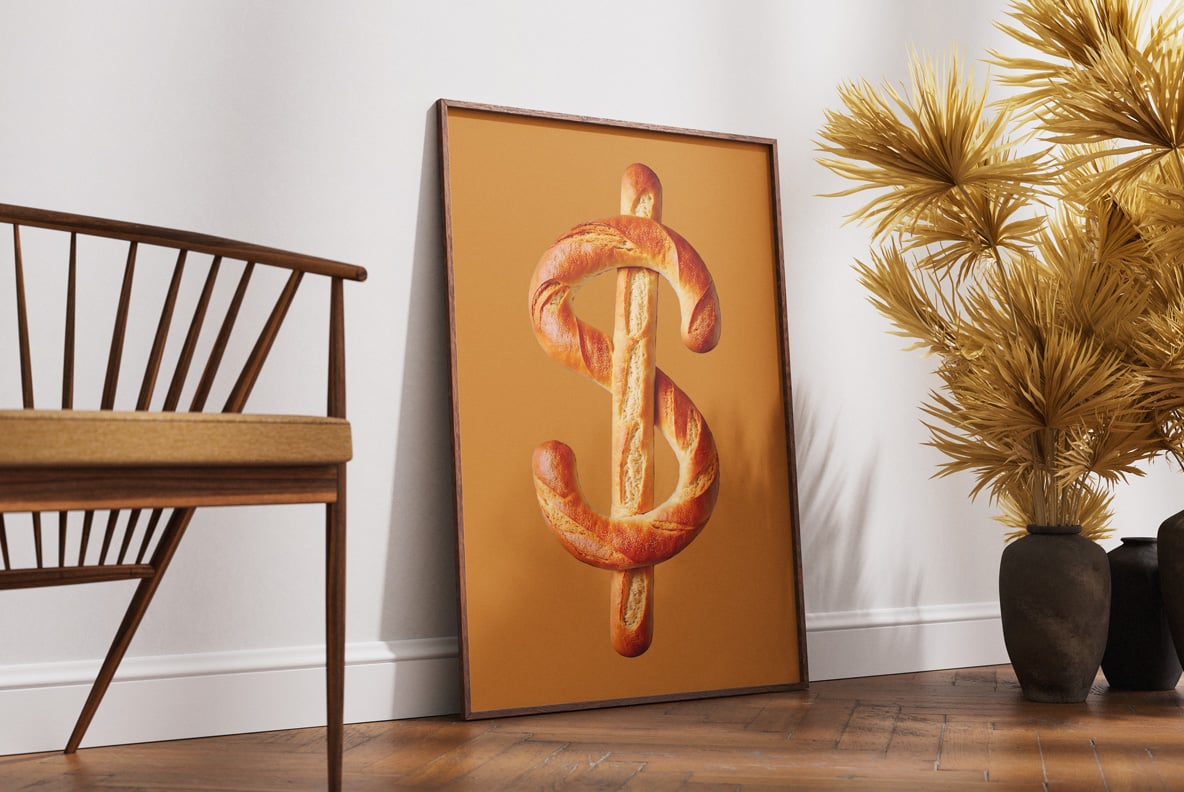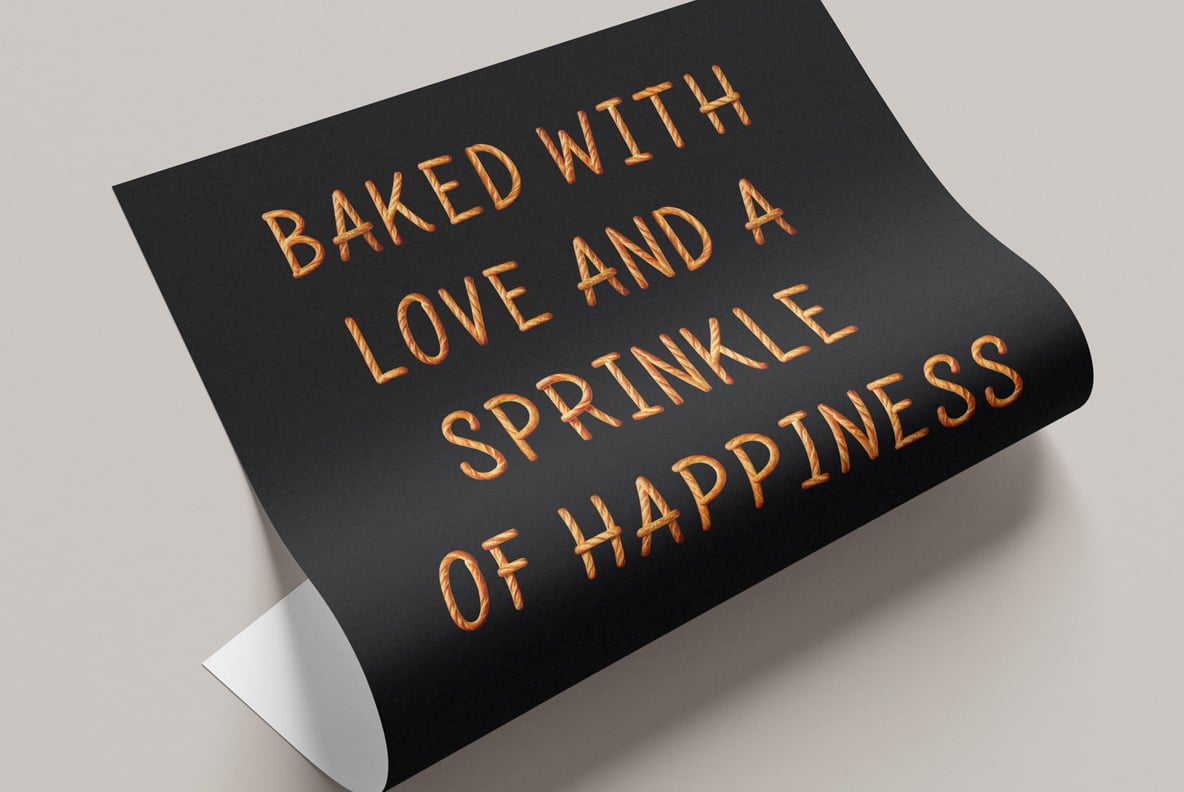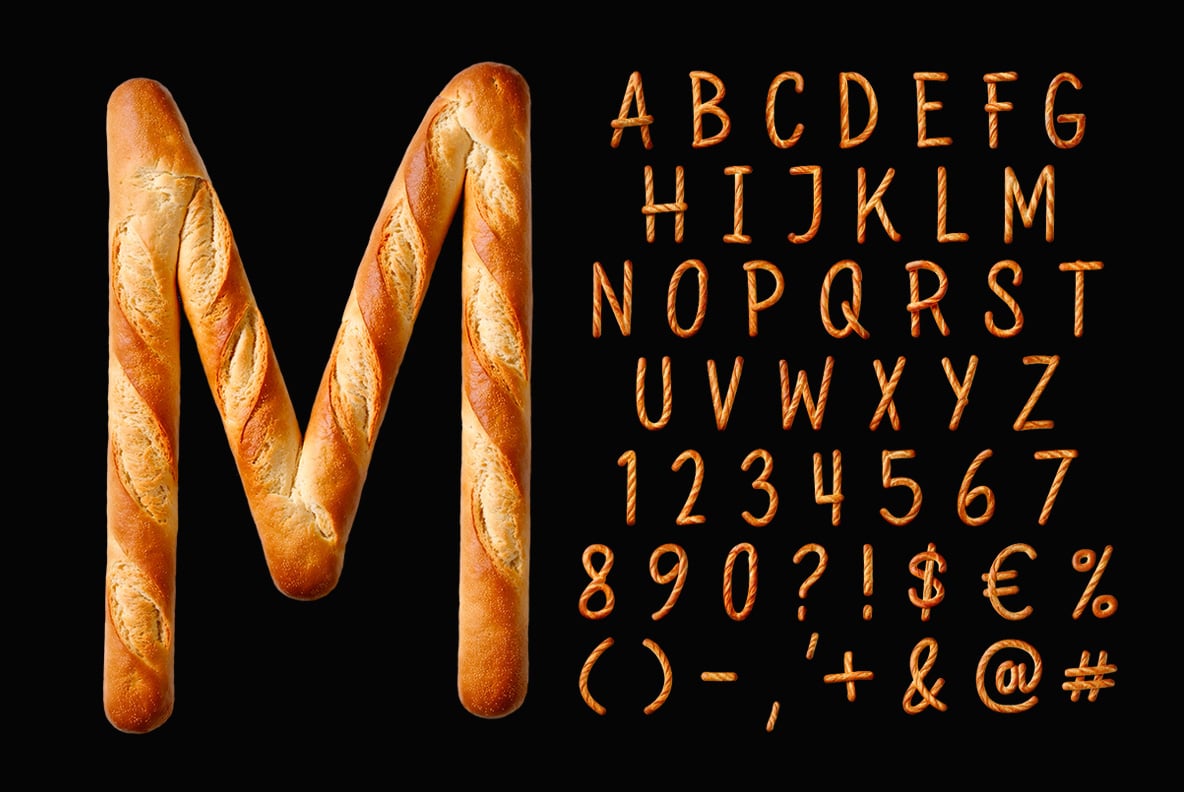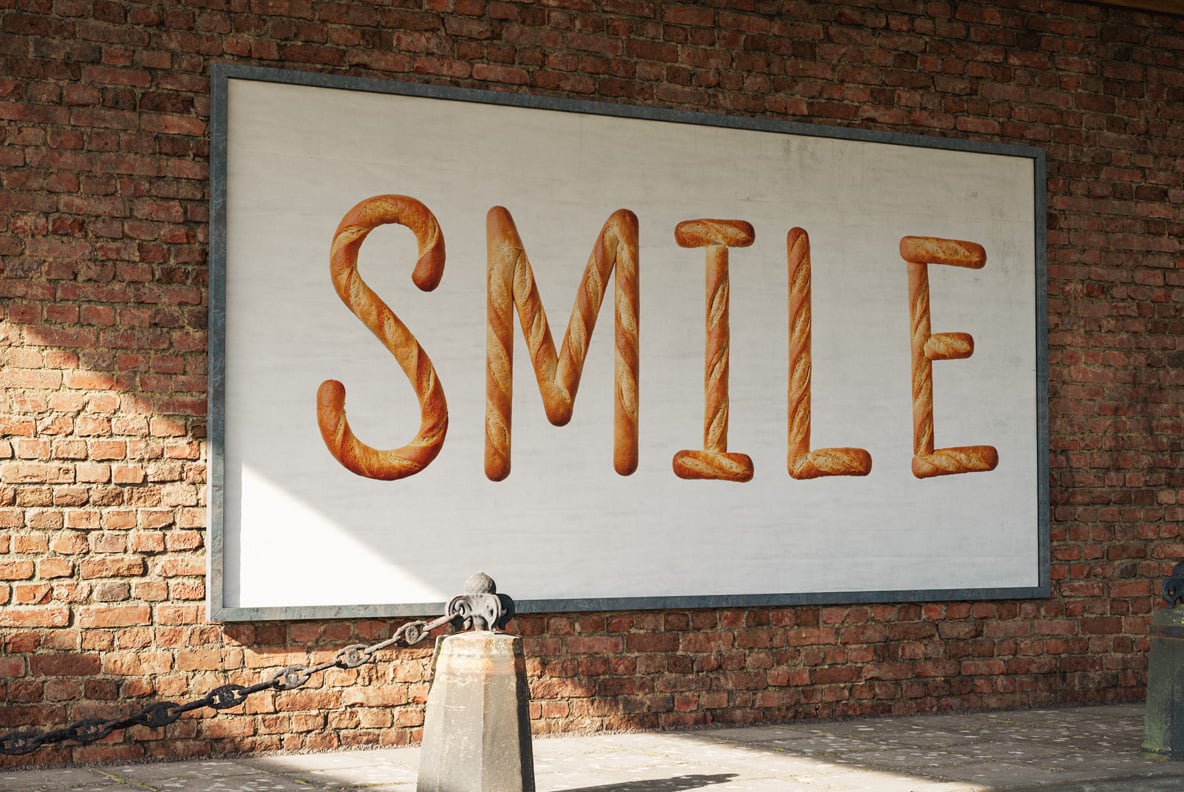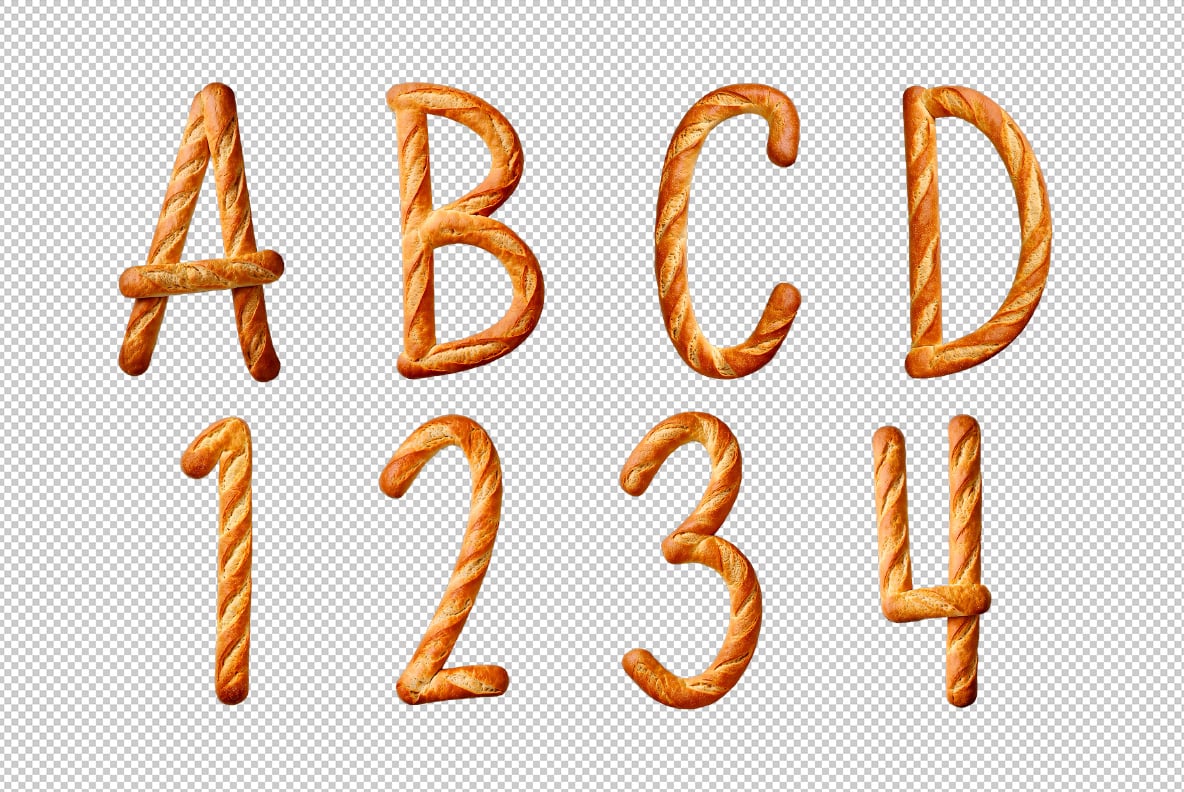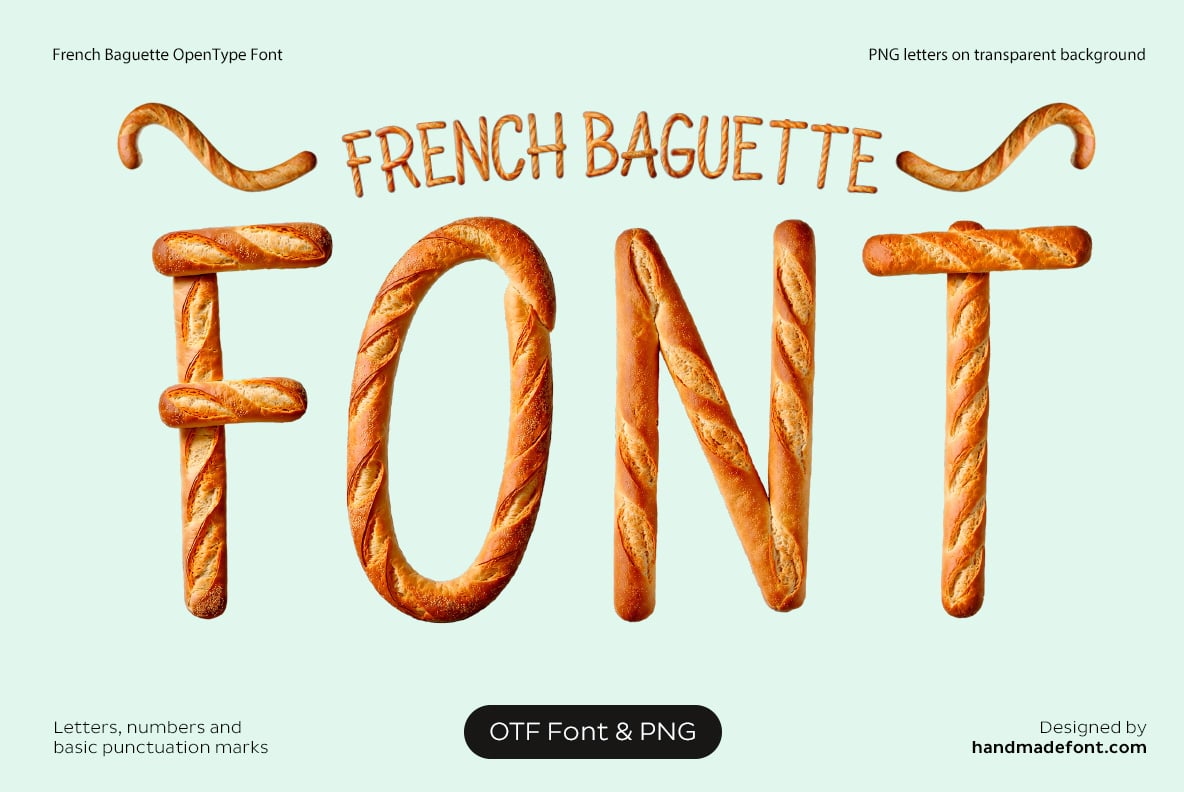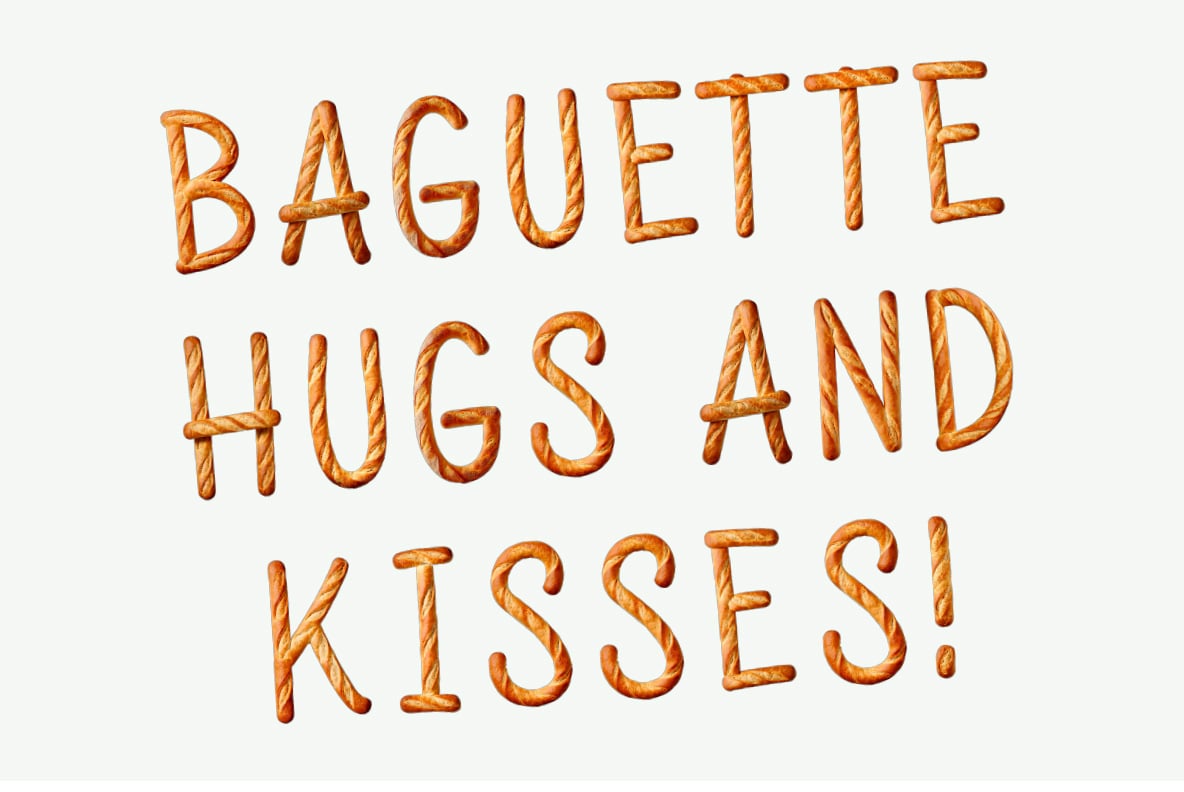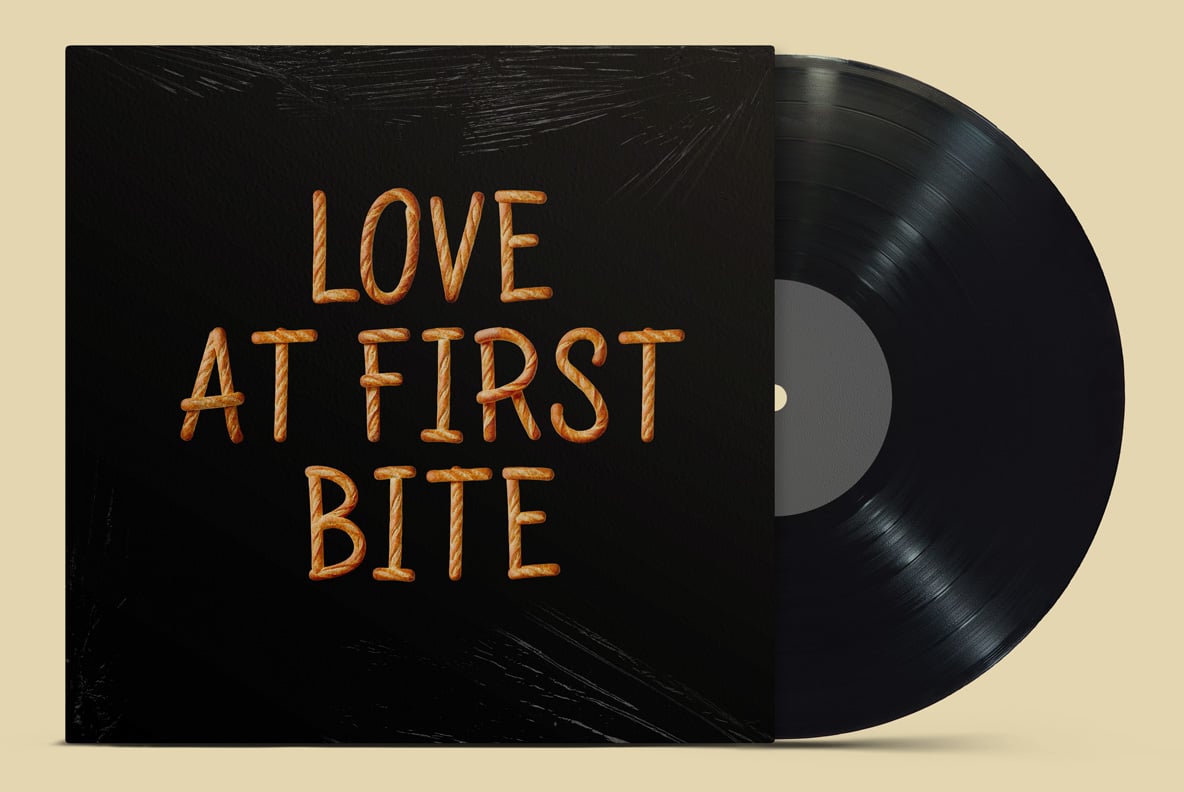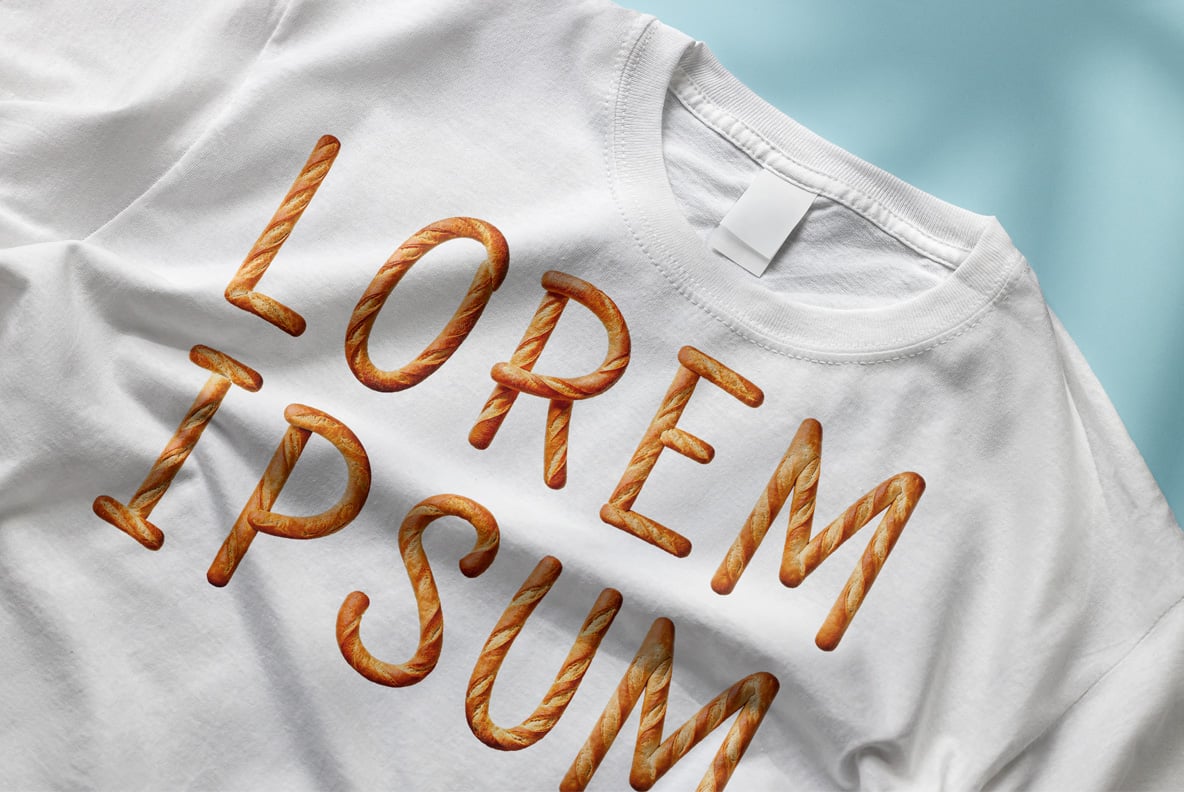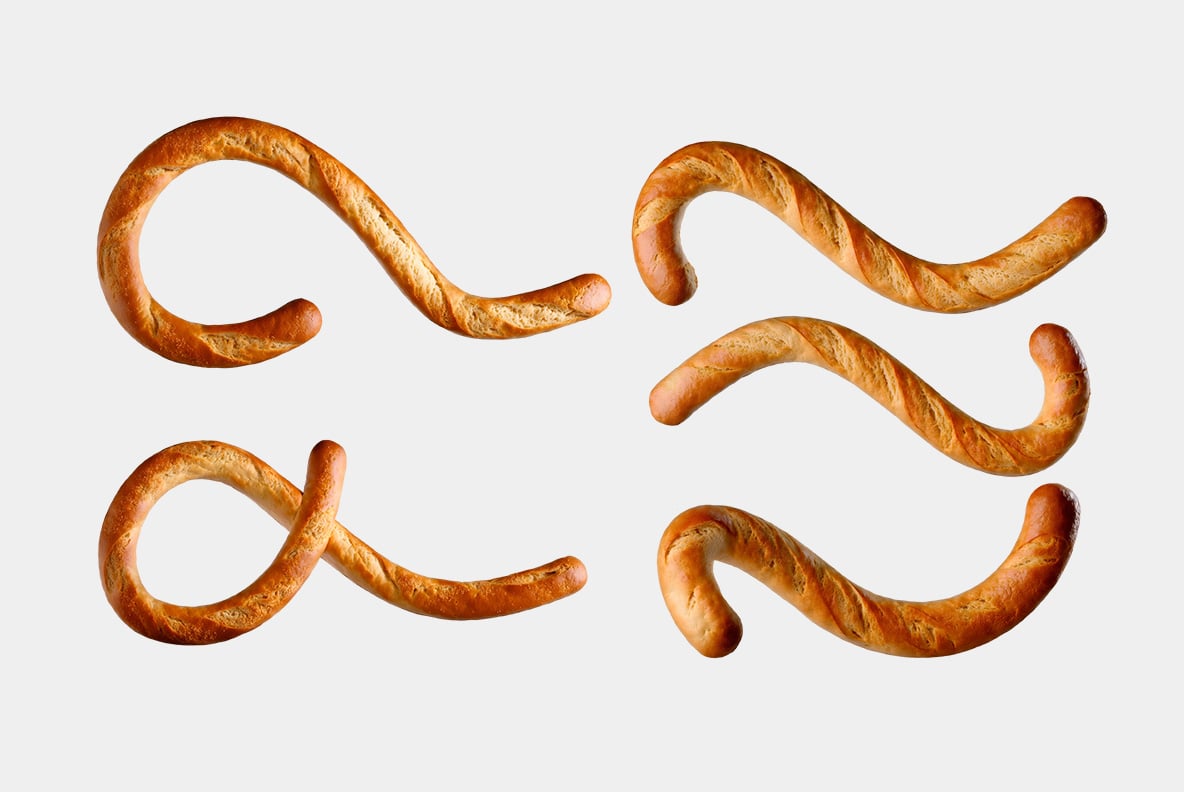
French Baguette Font
Introducing French Baguette Font —a typeface that’s as warm and inviting as a Parisian bakery at dawn. With smooth, rounded curves and a touch of rustic charm, each letter mimics the texture and form of a freshly baked baguette. Perfect for bakery branding, food blogs, or cozy café menus, this font brings the warmth of a golden loaf and the artisanal spirit of French bread to any design.
A high definition OpenType Font. Contains uppercase characters, numerals and basic punctuation. (Draw height roughly 800 pixels). All letters and glyphs that comprises this font you can see on the preview.
Others : ! ? - . ' $ € % @ &